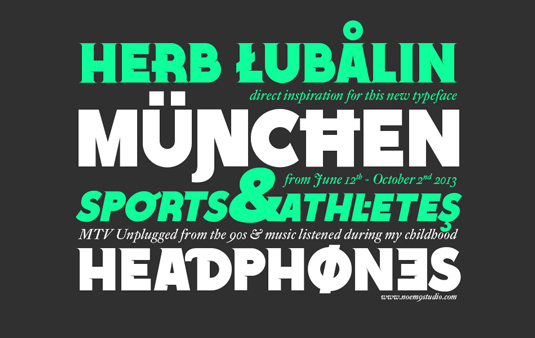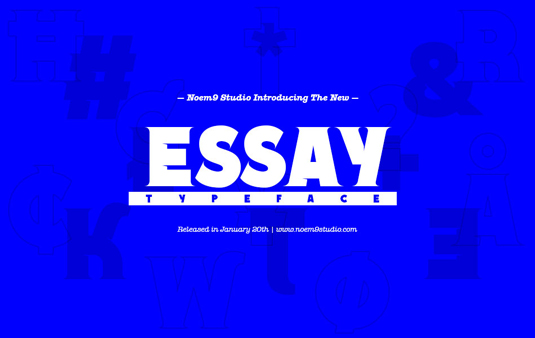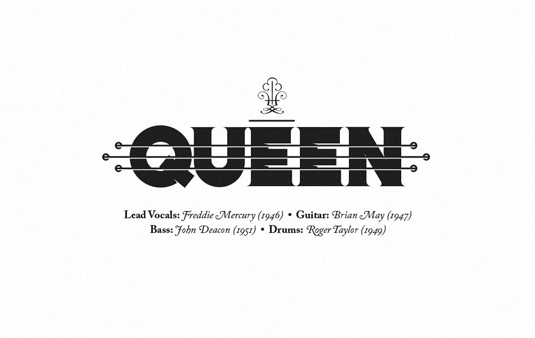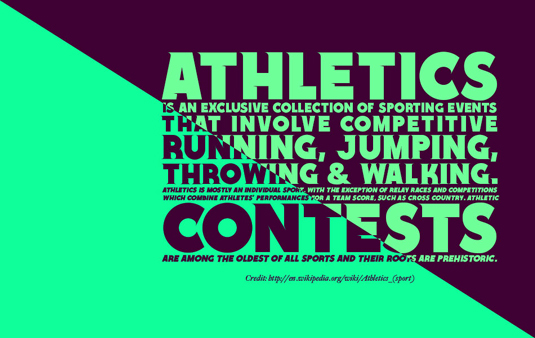
Font of the day: Essay
Essay by Jose A Garrido
Jose A Garrido is an art director, graphic designer and founder of multidisciplinary design studio Noem9 Studio. He is also the man behind today's font of choice, Essay.
"Essay was born from an afternoon looking at old book covers in Berlin in September last year," Garrido comments. "Inspired by Herb Lubalin, athletics and rock music, its details relate with speed and punk styles but keeping the main structure intact. Works perfectly as main, bold typography combined with some serif typefaces."